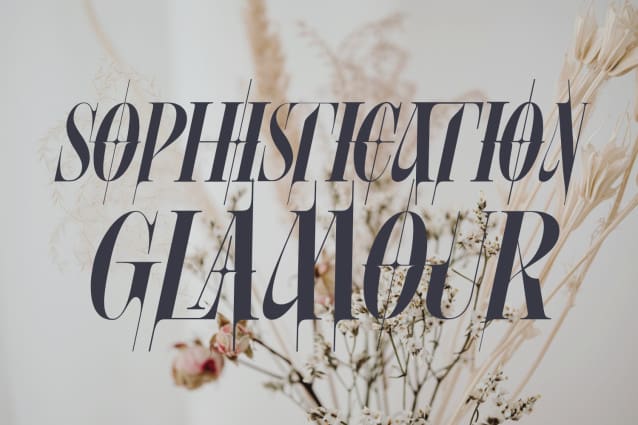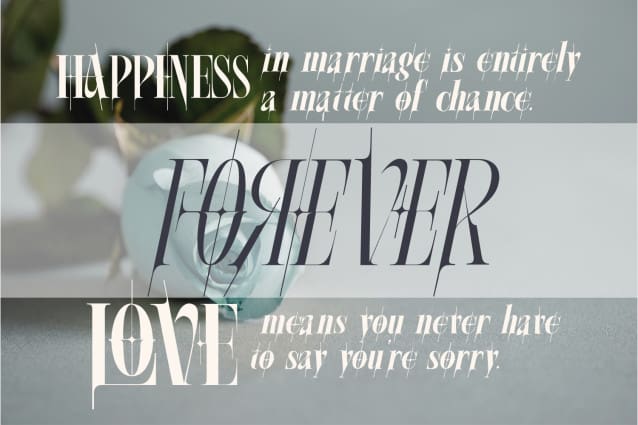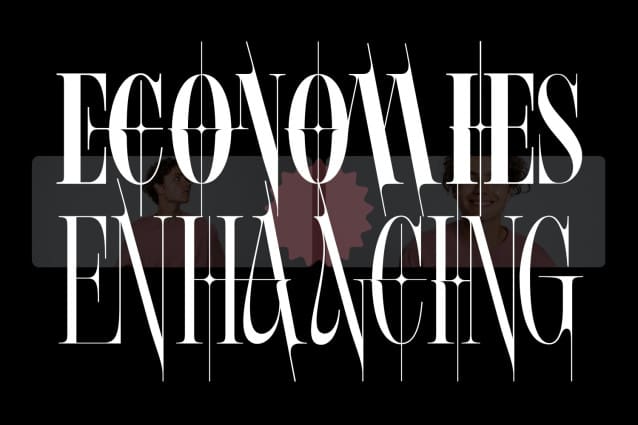
Economies Enhancing Font
ECONOMIES ENHANCING FONT is a new condense font that is elegant and has a luxury look. The ligatures makes this typeface unique and stands out rather than the regular serif font. It’s a beautiful and inspiring set of modern typography glyphs based on a minimal and simplistic approach to elegance. The inspiration came from the fashion magazines. Its thick-thin, serif strokes express the modernity of the fashion industry. This unique font is perfect for creating beautiful logotypes, stunning magazine designs and more. This font can be your solution in completing projects that are equipped with various alternate and ligature collections.
ECONOMIES ENHANCING was built with OpenType features and includes 100 ligatures, alternate, numbers, punctuation, and it also supports other languages.
AC AD AL AN AR AS AT AU AV BE CA CE CH CO CT DE DI EA EC ED EE EL EM EN EP ER ES ET FE FO FR GE HA HE HI HO IE IC IL IN IO IR IS IT JU KE LA LE LI LL LO LY MA ME MI NC ND NE NG NO NT NS OC OF OM ON OO OP OR OT OU OW PA PR RA RD RE RI RO RS RT SE SH SI SO SS ST TA TE TH TI TO TR TT UM UN UR VE WI WO